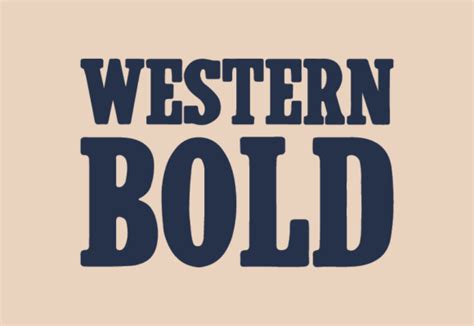
Hey guys! Are you on the hunt for a font that screams Western , with a touch of boldness and a whole lot of character? Well, saddle up because we’re diving deep into the world of OSC Bahamassc Bold , a font that might just be the missing piece in your design puzzle. In this article, we’ll explore what makes this font so special, where you can snag it for free, and how to make the most of it in your projects. So, grab your coffee, and let’s get started!
What Makes OSC Bahamassc Bold Stand Out?
When it comes to fonts, especially those with a specific theme like Western , it’s all about capturing the essence of that style. OSC Bahamassc Bold does this exceptionally well. First off, the bold nature of the font immediately gives it a strong presence. It’s not subtle; it’s designed to grab attention and make a statement. The thick strokes and sturdy letterforms evoke images of vintage signage, old Western movie posters, and rugged landscapes. This makes it perfect for anything that needs to convey a sense of authenticity and heritage.
But it’s not just about being bold. The design of OSC Bahamassc Bold incorporates unique stylistic elements that set it apart from other Western-style fonts. Think about those classic Western fonts you’ve seen – many have serifs that are sharp and angular, reminiscent of spurs and saddles. OSC Bahamassc Bold likely plays with these elements, possibly adding its own twist to make it distinct. This could include unique curves, decorative details, or even subtle imperfections that give it a hand-drawn feel. The goal is to create a font that feels both familiar and fresh, capturing the spirit of the Old West while still being versatile enough for modern design applications.
Another key aspect is readability. A font can be visually stunning, but if it’s hard to read, it’s not very useful. OSC Bahamassc Bold , being a bold font, needs to strike a balance between being attention-grabbing and legible. This means ensuring that the letter spacing is well-balanced, and the letterforms are clear enough to be easily recognized, even at smaller sizes. This is particularly important for projects like websites or apps, where readability is paramount.
Moreover, consider the overall tone and mood that OSC Bahamassc Bold conveys. Western fonts often evoke feelings of nostalgia, adventure, and ruggedness. OSC Bahamassc Bold , with its bold weight, probably amplifies these feelings, making it ideal for projects that aim to create a strong, impactful impression. Whether you’re designing a logo for a Western-themed business, creating promotional materials for a country music event, or adding a touch of vintage charm to your website, this font can help you achieve the desired effect.
Finally, think about the versatility of OSC Bahamassc Bold . While it’s undoubtedly a niche font, suitable for specific types of projects, a well-designed font should still be adaptable to different contexts. This means it should work well with a variety of other fonts, colors, and design elements. It should also be suitable for both print and digital media, ensuring that it looks just as good on a poster as it does on a website. The best way to assess this is to experiment with the font in different scenarios and see how it performs. Does it maintain its character and readability? Does it complement the other elements of your design? If the answer is yes, then you’ve found a winner.
So, there you have it, folks! OSC Bahamassc Bold is a fantastic Western font that can add a touch of rugged charm to your designs. Whether you’re working on a logo, poster, website, or t-shirt, this font can help you create a strong visual impact and communicate the spirit of the Old West. Just remember to download it from a reputable source, check the license, and use it strategically to get the best results. Now go out there and create some awesome designs, partner!